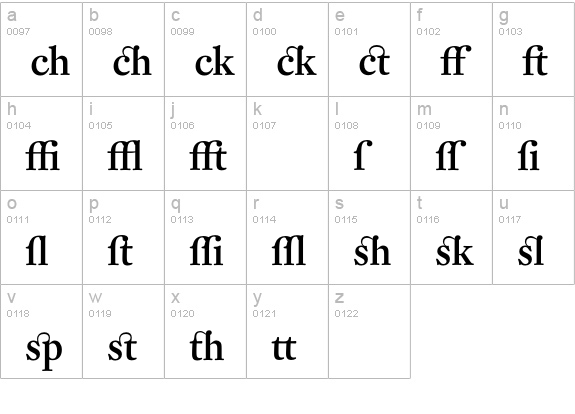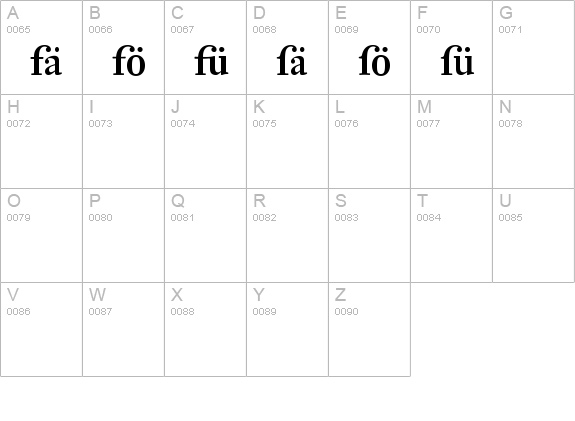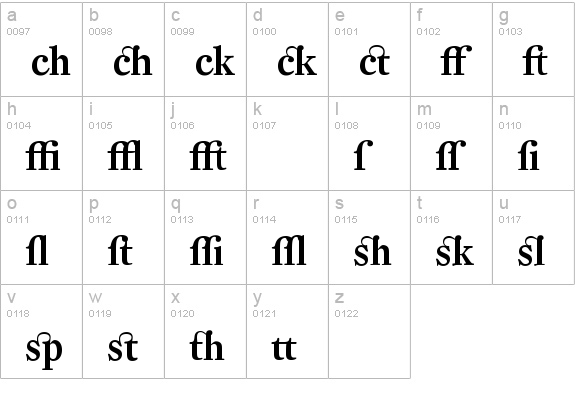
DTL Fleischmann D Medium Alt Font Details
DTL Fleischmann D Medium Alt is a balanced, medium-weight variant in the DTL typeface family \xE2\x80\x94 well suited to sub-headlines, navigation, and balanced editorial work.
DTL Fleischmann D Medium Alt is a classic and timeless font that exudes elegance and sophistication. Its medium weight and alternate characters add a touch of personality and charm to any design project. Perfect for use in editorial design, branding, and signage, this font is versatile and easy to read. What sets DTL Fleischmann D Medium Alt apart is its combination of traditional design elements with a modern twist, making it suitable for both traditional and contemporary applications. Whether you're designing a print publication, website, or marketing materials, this font will bring a touch of refinement to your work. Best of all, DTL Fleischmann D Medium Alt is available for free download at FontsMarket.com, making it accessible to designers of all levels. Don't miss out on this opportunity to add a touch of sophistication to your next project with this beautiful and versatile font.